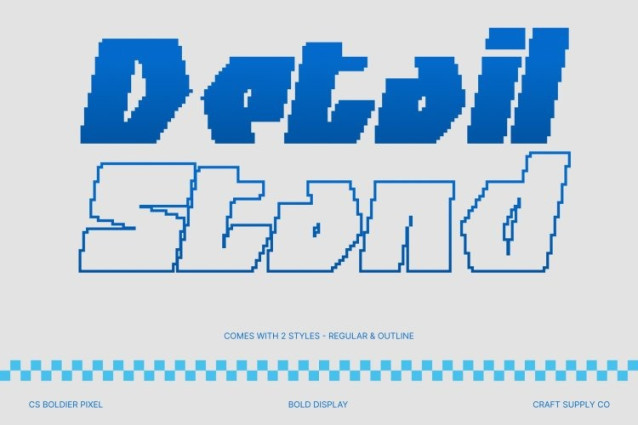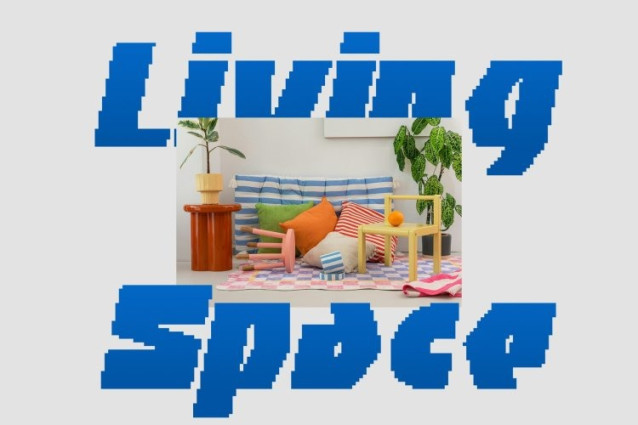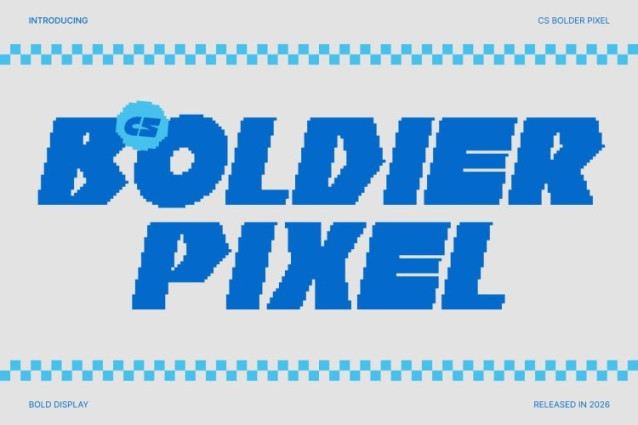
CS Boldier Pixel Font
CS Boldier Pixel Font This is a bold display font defined by thick, powerful strokes enhanced with pixel detailing that evokes retro digital aesthetics. This pixel construction gives the font an old-school screen feel while maintaining a strong, modern presence. The result is a typeface that feels energetic, playful, and visually assertive perfect for designs that celebrate creativity and individuality.
Strong Visual Impact for Standout Typography
With its heavy weight and blocky pixel edges, this font delivers instant impact. The bold letterforms are designed to dominate attention, making them ideal for headlines, banners, and display text where emphasis is essential. Its digital-inspired structure ensures clarity while reinforcing a confident, eye-catching rhythm across layouts.
Funky Retro-Digital Style for Creative Projects
This font carries a funky, expressive personality rooted in retro gaming and old digital visuals. This playful pixel style adds excitement and uniqueness, making the font especially suitable for posters, music artwork, event graphics, and experimental creative projects that aim to feel bold, fun, and unconventional.
Versatile for Modern and Retro Branding
Despite its strong personality, this font remains versatile across many applications. It works seamlessly in branding, advertising, web visuals, and promotional materials. Whether you’re building a retro-inspired identity or a modern design with a nostalgic digital twist, this font delivers a dynamic balance of boldness, creativity, and pixel-powered charm.